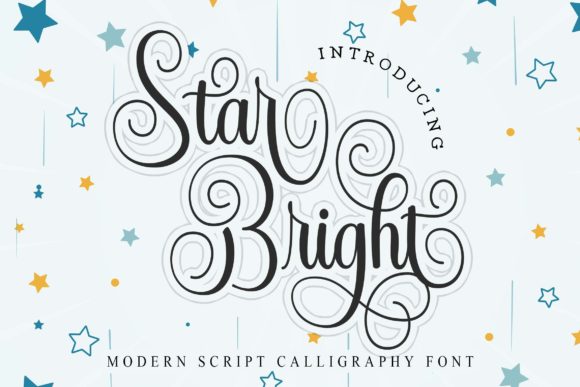
Step into a world of sophistication and charm with Star Bright Font, a captivating script typeface designed to add a touch of elegance and romance to your creative endeavors. Inspired by the beauty of handwritten calligraphy, Star Bright's characters dance along the baseline, creating a mesmerizing flow that will captivate your audience.
With its delicate strokes and graceful curves, Star Bright is the perfect choice for crafting heartfelt invitations, enchanting logos, alluring social media posts, and any project that demands a touch of timeless beauty. Its PUA encoding ensures effortless access to an array of stunning glyphs and ligatures, empowering you to unleash your creativity without limits.
Whether you're a seasoned designer or a creative enthusiast, Star Bright Font is your gateway to captivating designs that leave a lasting impression. Let its enchanting essence elevate your projects to new heights of sophistication, making your words shine with eloquence and charm. Join the Star Bright revolution today and unlock the potential of truly captivating typography.
Remember, Star Bright Font is not just a collection of letters; it's an expression of your unique style and vision. Dive into its enchanting world and let your creativity soar. Embrace the beauty of handwritten calligraphy, and let Star Bright Font guide you towards design brilliance.